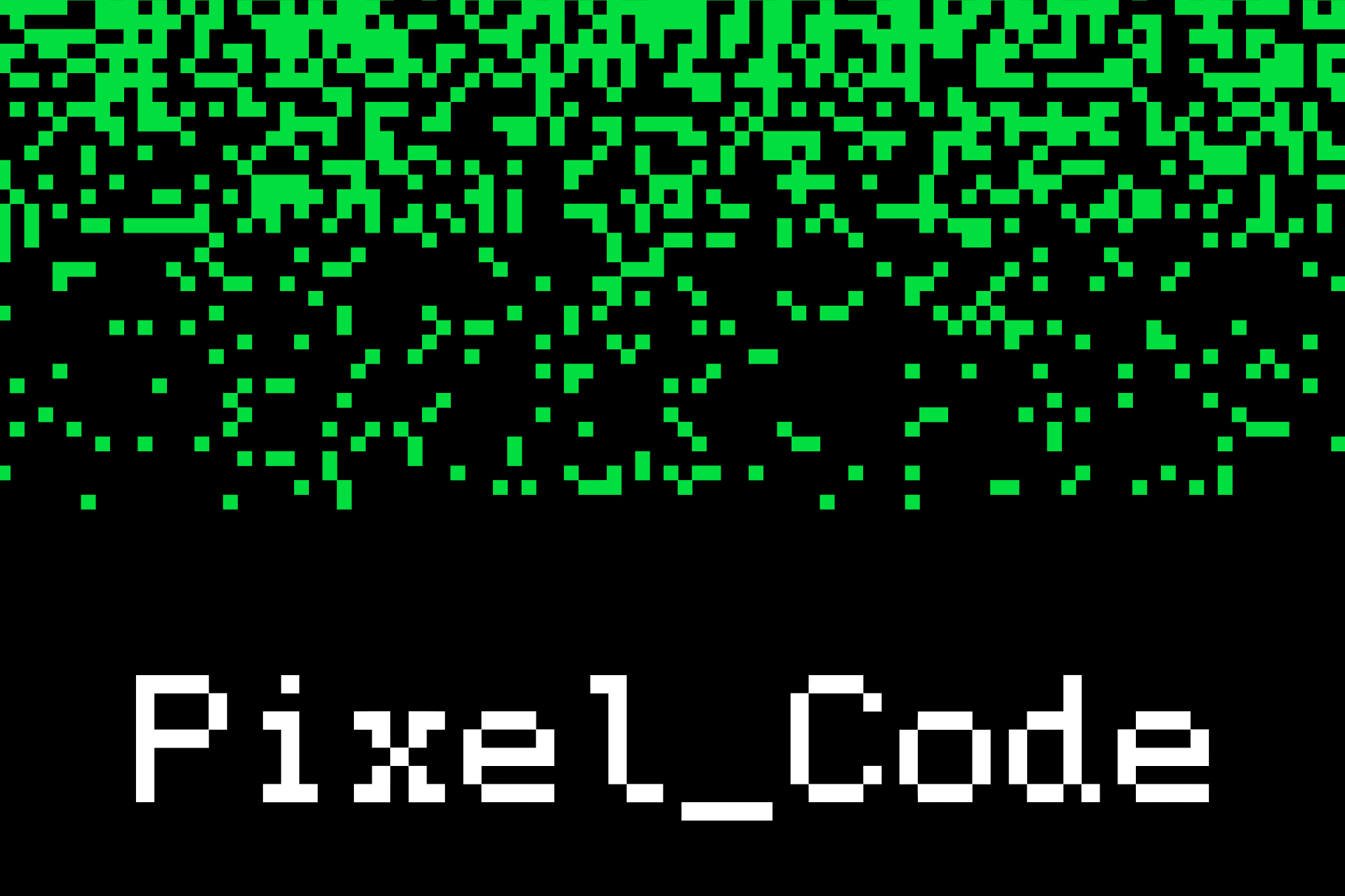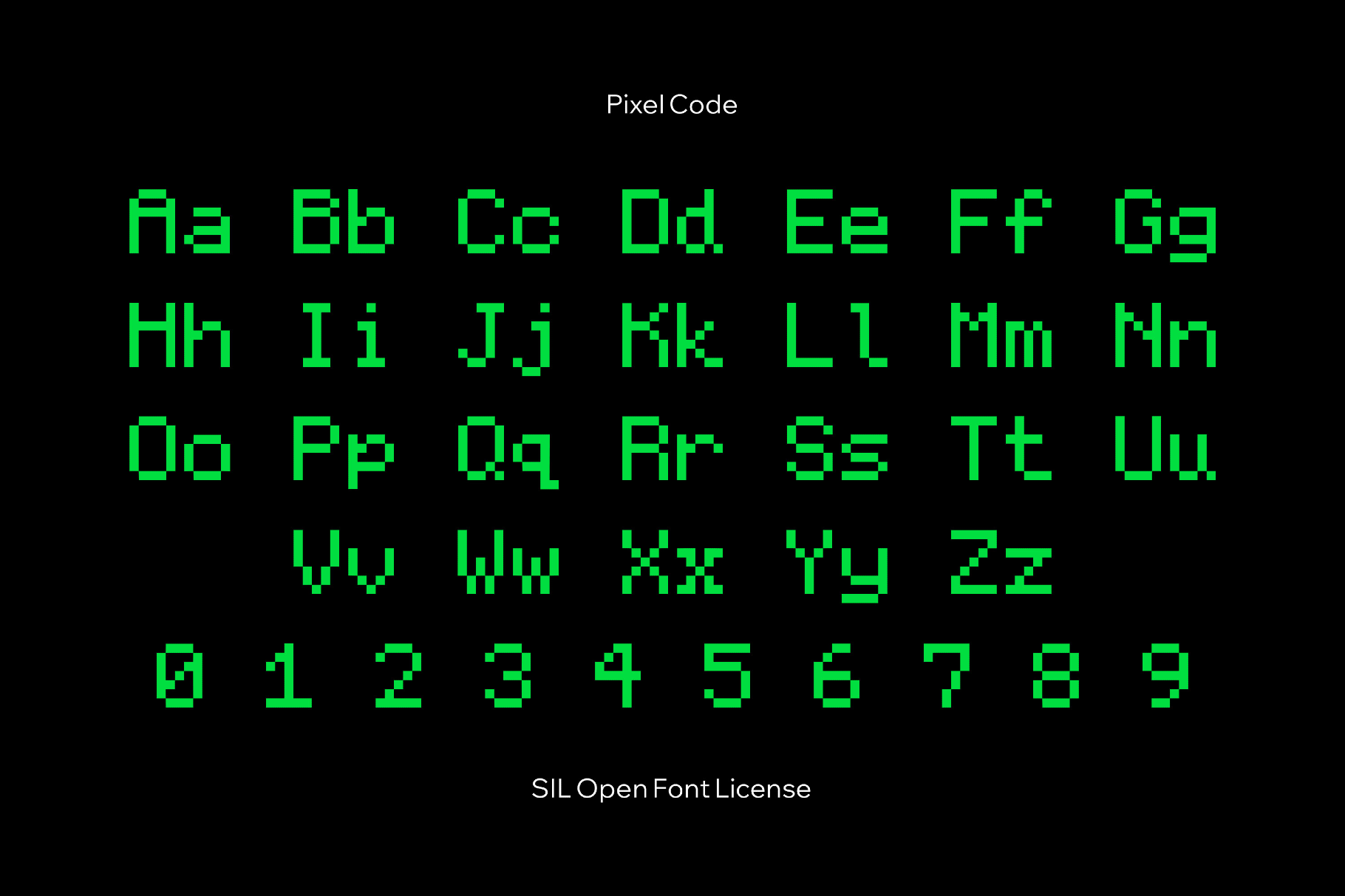
Pixel Code
Pixel Code presents a bitmap voice rooted in early computing, echoing 8-bit arcade screens, DOS interfaces, and the visual grammar of retro game consoles. It suits game UI labels, developer portfolios, sci-fi posters, album artwork, experimental branding, motion titles, and nostalgic web headers.